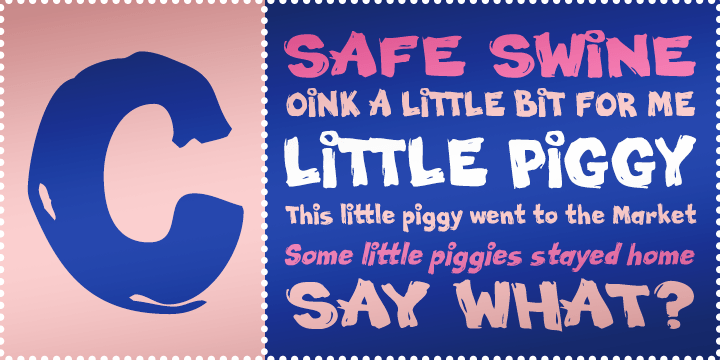
Little Piggy BTN
Little Piggy is a typestyle based on the logotype lettering for the comic Tank Girl. Its bold, yet offbeat appearance, with regular and wide settings, including a backslant style, offer a dynamic range of possibilities.